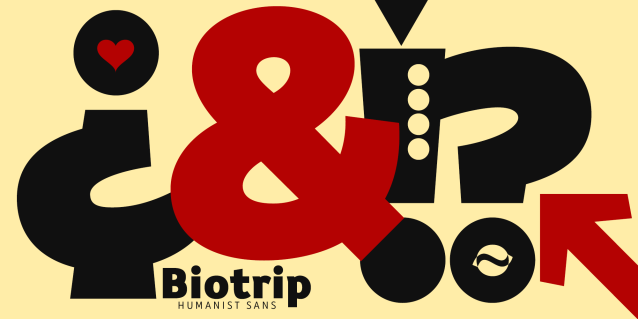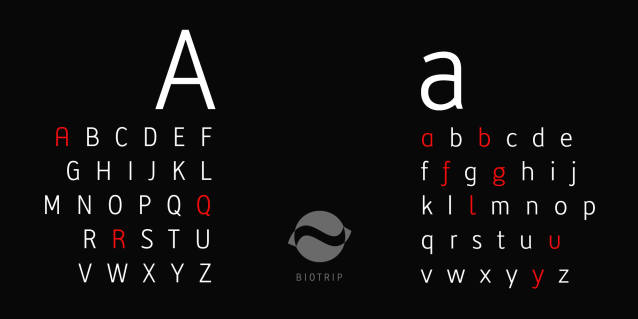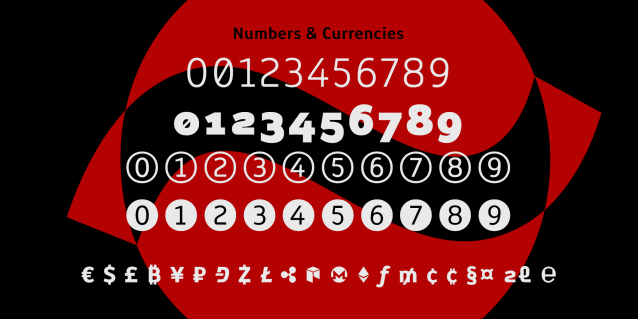
Biotrip Sans Font
Biotrip Sans font family — a typeface that breathes. I’ve brought to life a friendly typeface family that is, above all, a journey. A journey (Trip) from the purity of geometry to the warmth of the organic (Bio).
I designed Biotrip Sans from that impossible point of equilibrium between reason and impulse, between the precise line of the vector and the unpredictable stroke of the hand. It’s a humanist sans-serif, a category that lives on that fascinating edge where the geometric softens, where rational proportions give way to the humanity of gesture.
Biotrip Sans unfolds in 14 methodically designed fonts, distributed across 2 styles (Regular and genuine, flowing Italic) and 7 weights that range from the ethereal elegance of Light to the powerful impact of Black.